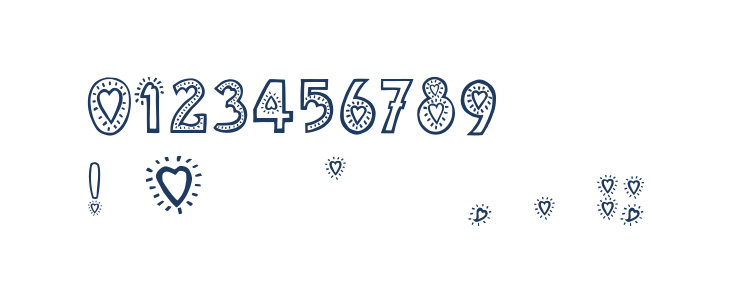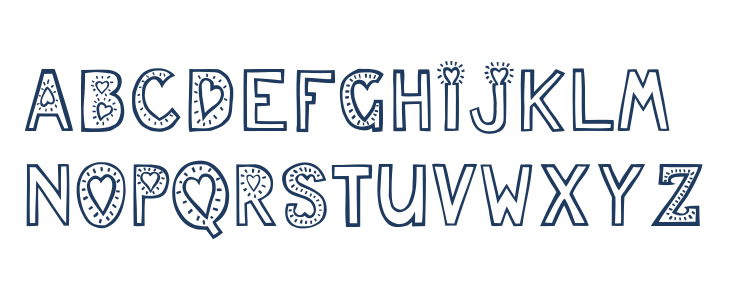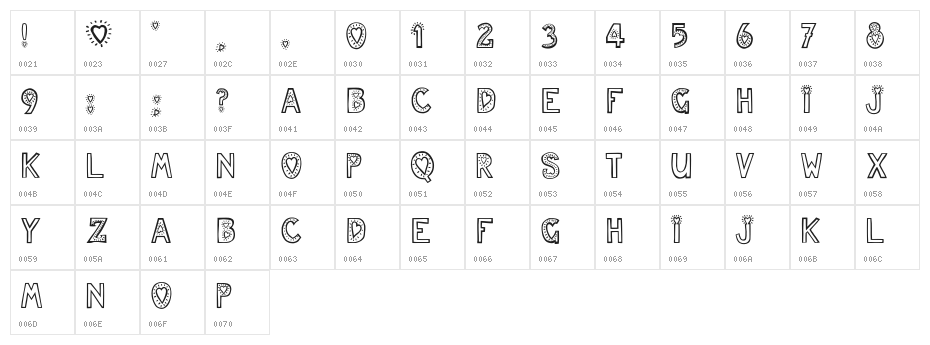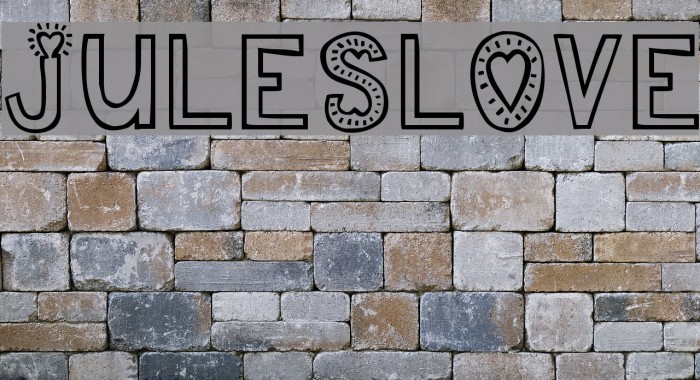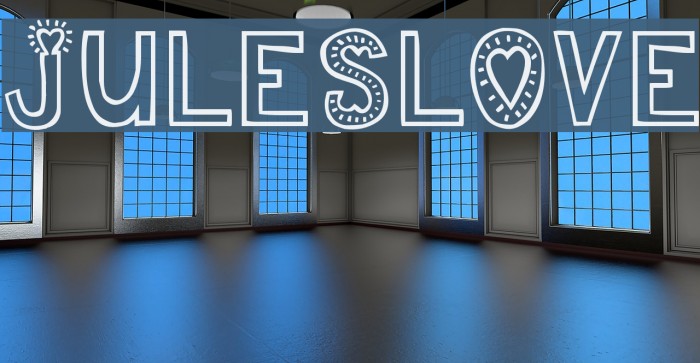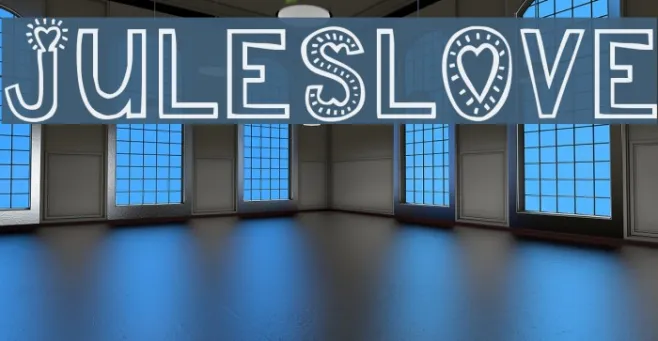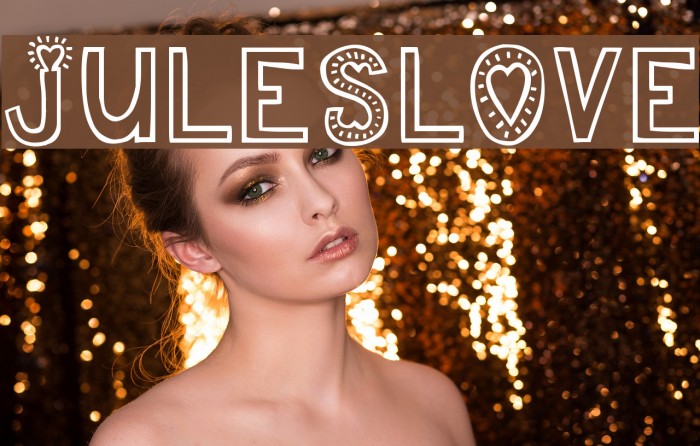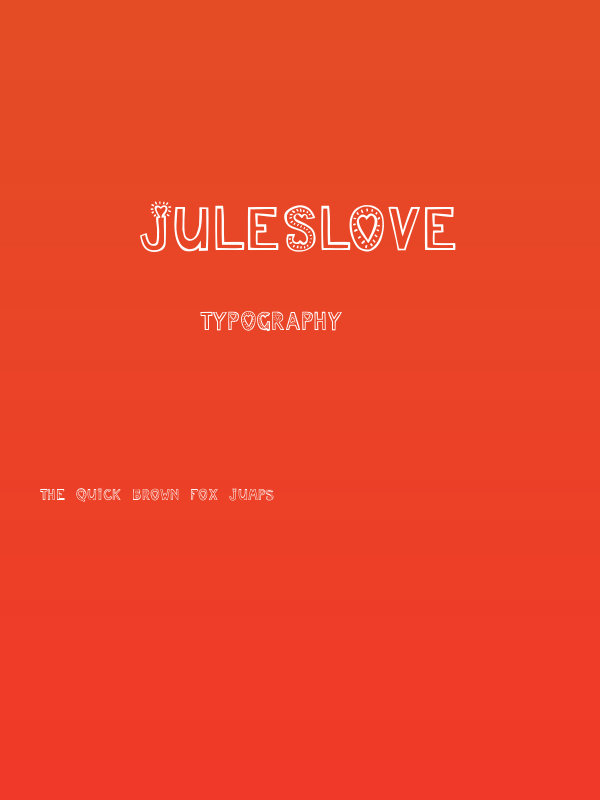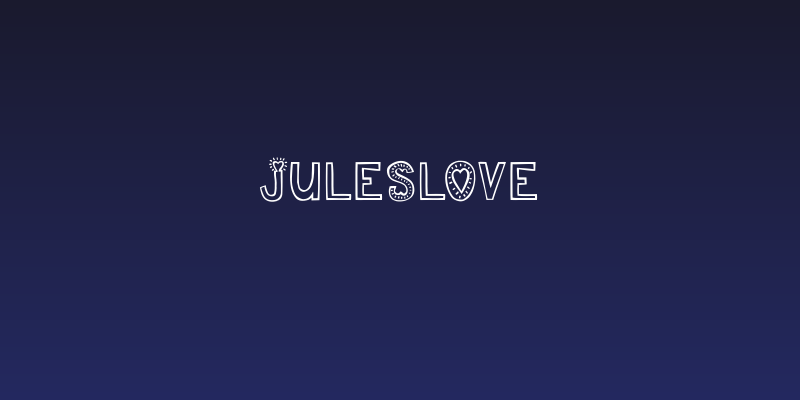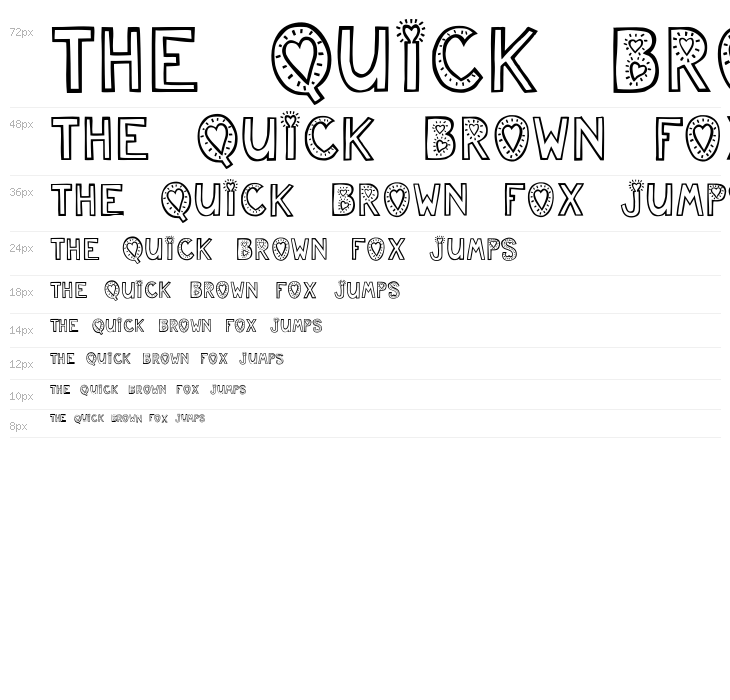
JulesLove Font
JulesLove Description
This playful and decorative font features a whimsical design with heart and dot embellishments inside each character. The uppercase and lowercase letters, as well as numbers, are outlined with a bold, black stroke, giving them a striking appearance. The unique style incorporates elements of fun and creativity, making it ideal for projects that require a touch of personality. The characters are evenly spaced, ensuring readability while maintaining their decorative charm. This font is perfect for adding a lively and cheerful vibe to any design.
| Proposed Projects | Ideal for children's book covers, playful invitations, greeting cards, and creative branding projects. |